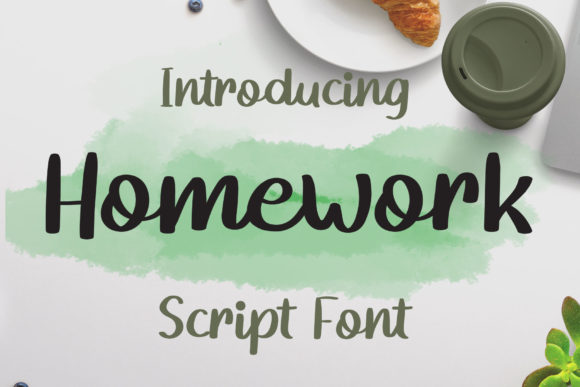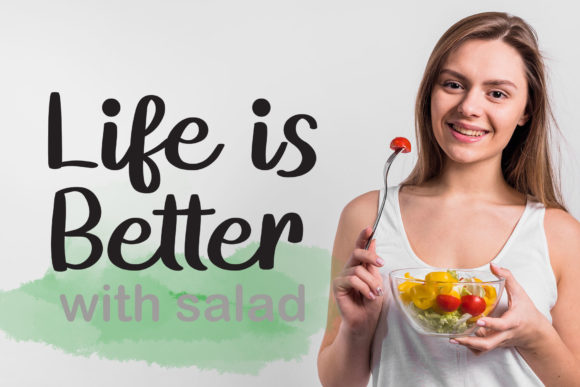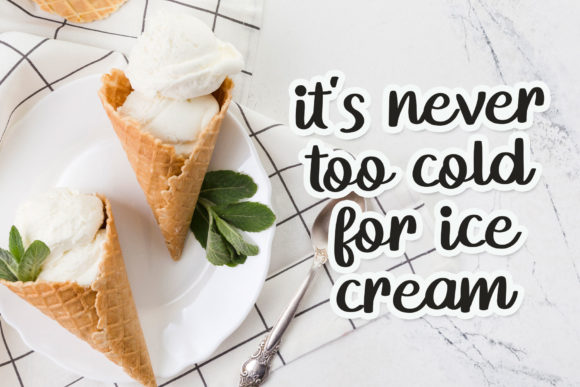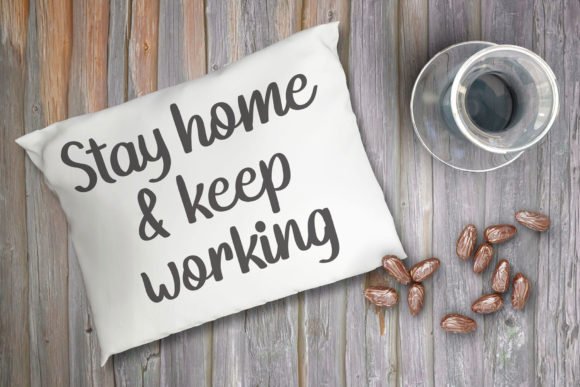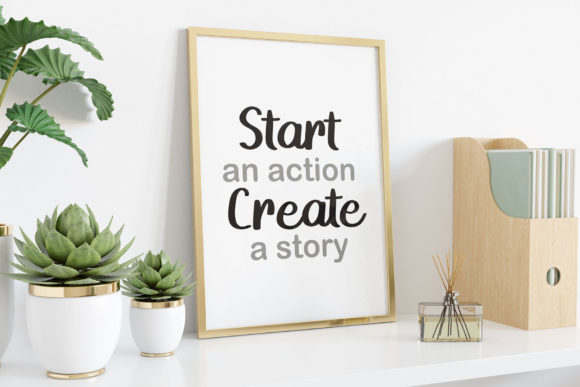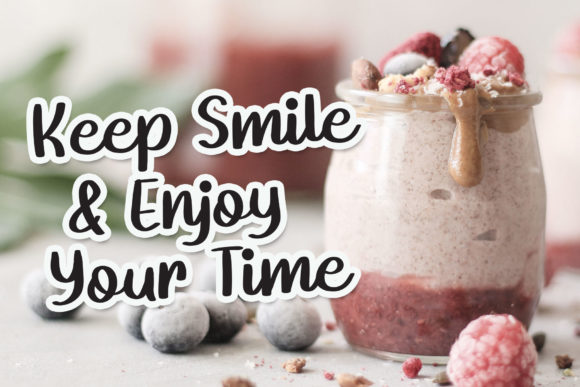
Homework Font
About Homework Font
Homework is a sweet and friendly handwritten script font. This font will look outstanding in any context, whether it’s being used on busy backgrounds or as a standalone headline!